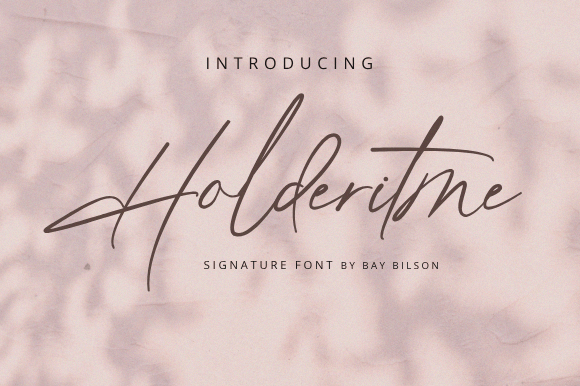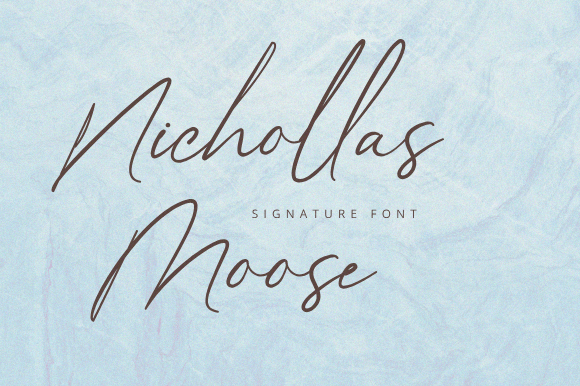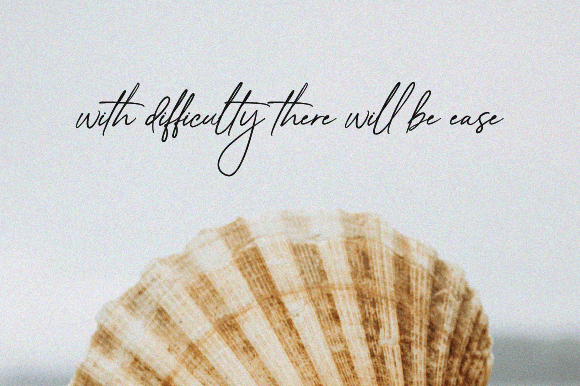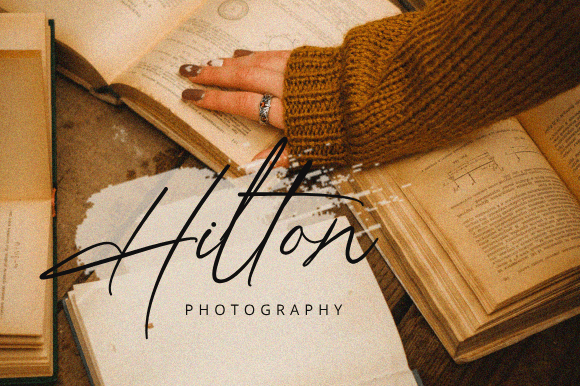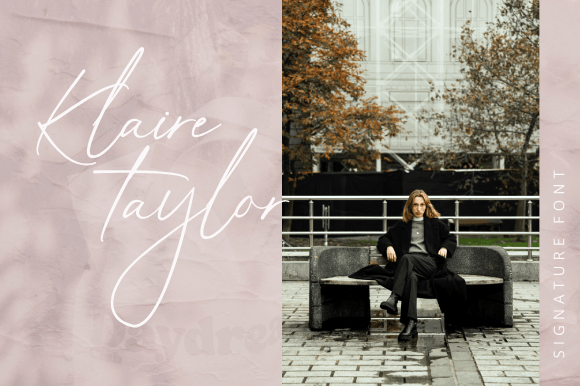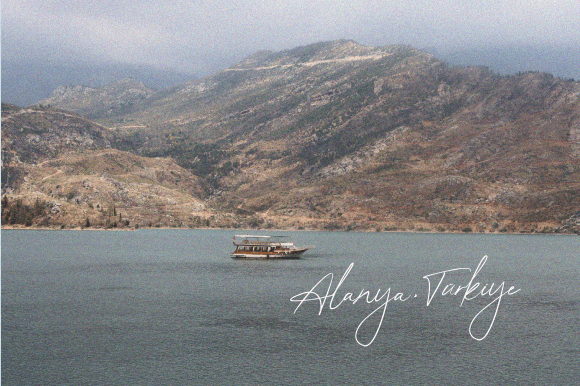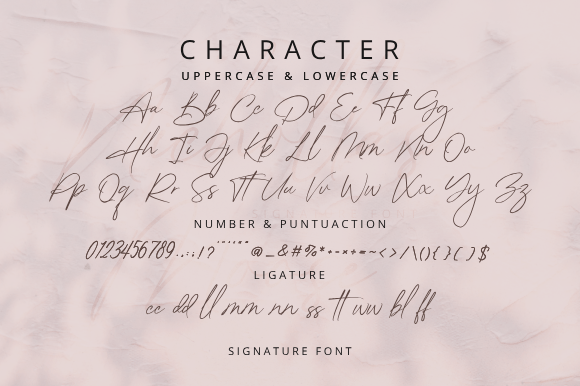
The Perfect Font for the Perfect Moment
Have you ever been brainstorming ideas for a project, and suddenly, the perfect font pops into your mind? For designers, this moment is a game-changer. It’s when the entire concept comes together, and the creative vision is crystal clear. For many, this moment is often triggered by the elegant and flowing design of the Holderitme Font.
With its harmonious rhythm and gracefully connected strokes, the Holderitme Font adds a touch of sophistication to any project. Its delicate curves and varying line weights make it a versatile choice for various creative endeavors, from invitations and branding to editorial design. Whether you’re aiming for a traditional or modern look, the Holderitme Font brings a sense of charm and elegance to the written word.
Holderitme Font Key Features
- Font Family: Holderitme Font comes in a single font family with multiple styles, including Regular, Italic, Bold, and Bold Italic.
- Character Set: The font includes a comprehensive character set, covering Latin, Cyrillic, Greek, and many other languages, making it suitable for multilingual projects.
- Font Size and Resolution: Holderitme Font is designed to be scalable, allowing for smooth rendering at various font sizes and resolutions, including 72 dpi, 96 dpi, and 300 dpi.
- Unique Characteristics: The font’s distinctive design features a unique blend of modern and vintage elements, creating a sophisticated and eye-catching visual effect.
- Font Weight and Style: With 4 font weights (Regular, Italic, Bold, and Bold Italic), Holderitme Font offers flexibility and versatility in typography, making it suitable for a wide range of applications.
Holderitme Font Review
Overall, I think Holderitme Font has some great qualities, but it also has some areas that need improvement. ✨
- Unique Character: Holderitme Font has a unique character that sets it apart from other fonts. It’s quirky and fun, making it perfect for creative projects.
- Good Legibility: The font is relatively easy to read, even at smaller sizes, which is a big plus.
- Customization Options: Holderitme Font offers a range of customization options, including font size, color, and style, making it versatile and adaptable.
However, there are also some limitations to consider. ⚠️
- Compatibility Issues: I experienced some compatibility issues with certain software and platforms, which was frustrating.
- Lack of Consistency: The font’s design is not always consistent, which can make it look messy and unpolished.
- Not Suitable for Large Text: While Holderitme Font is great for smaller text, it can look cluttered and overwhelming when used for larger text.
Overall, I think Holderitme Font has potential, but it needs some refinement to reach its full potential. With a bit more attention to consistency and compatibility, it could be a real game-changer.
Holderitme font is ideal for:
- Creating unique and creative typography
- Designing eye-catching headings and titles
- Adding a personal touch to your designs
Great Vibes Font is a modern, elegant script font. It’s perfect for creating a sophisticated and stylish look for invitations, wedding cards, and other special occasions. Great Vibes Font is more cursive and has a softer feel compared to Holderitme Font, which is more geometric and modern.